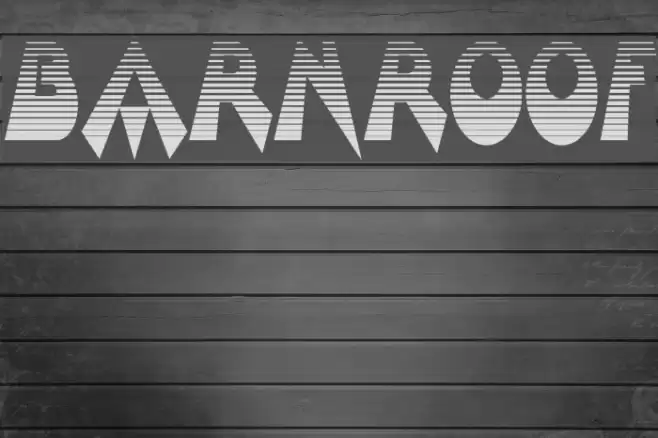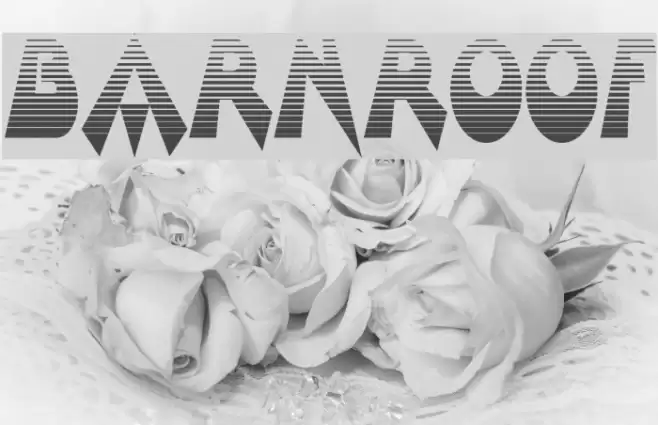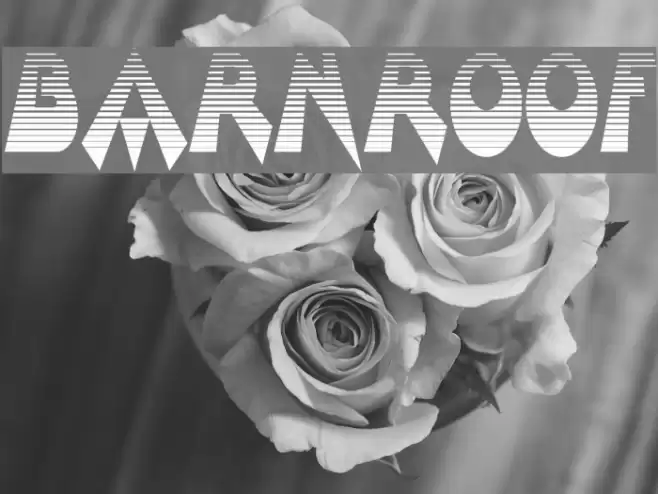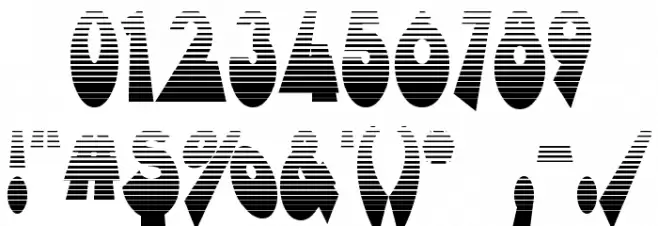
Barnroof Font
Barnroof Description
This font features a bold, geometric design with a distinct striped pattern running horizontally across each character. The uppercase letters are angular and sharp, creating a dynamic and eye-catching appearance. The numbers and special characters maintain this bold, striped aesthetic, ensuring consistency throughout. The font's unique style is reminiscent of retro or vintage themes, making it suitable for projects that require a strong visual impact. Its decorative nature is ideal for headlines, posters, and branding that seeks to stand out.
A bold, geometric font with a distinctive striped pattern, perfect for impactful designs from Uncategorized fonts.
- Proposed Projects: Ideal for retro-themed posters, eye-catching headlines, branding, and logos that require a bold statement.
- Overall Style: Vintage